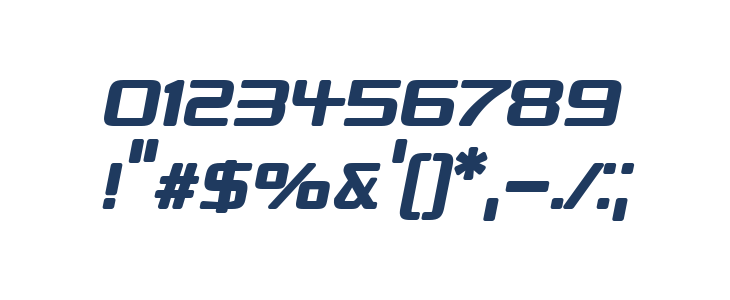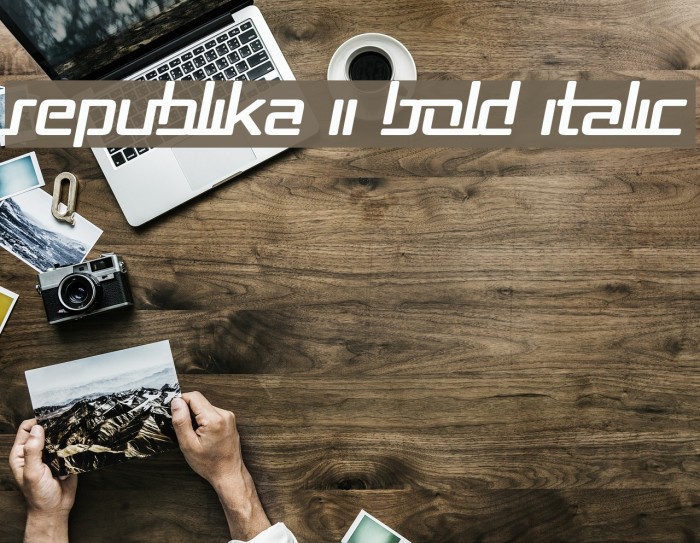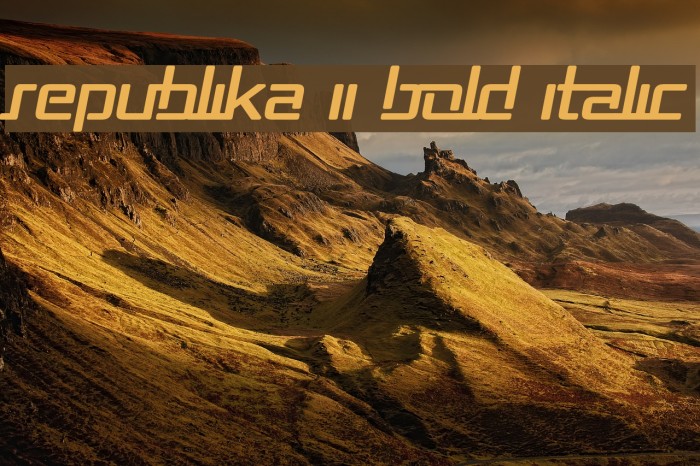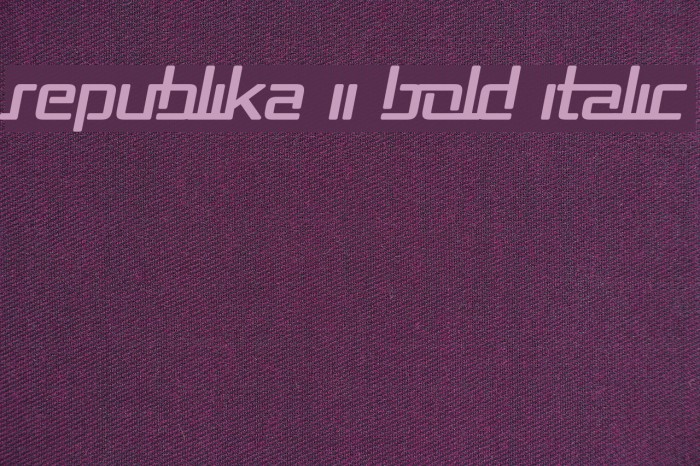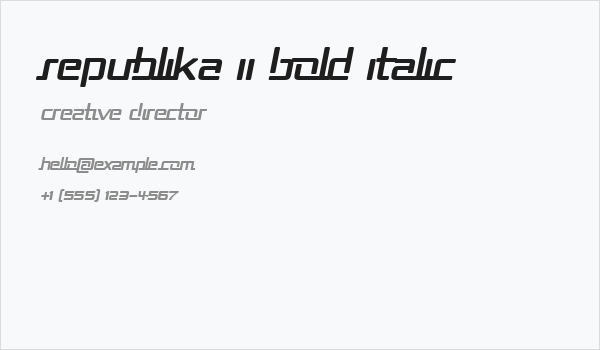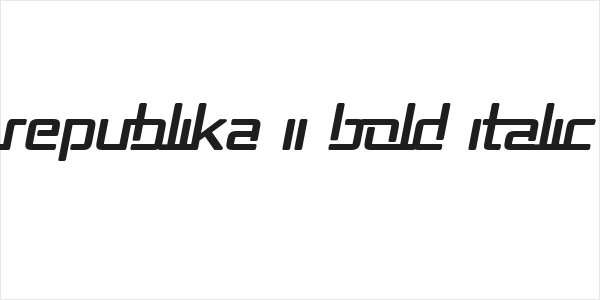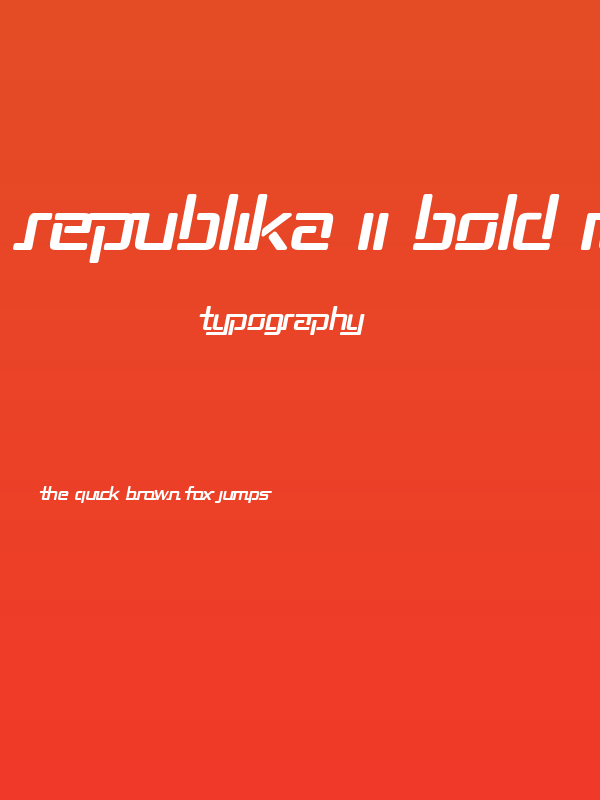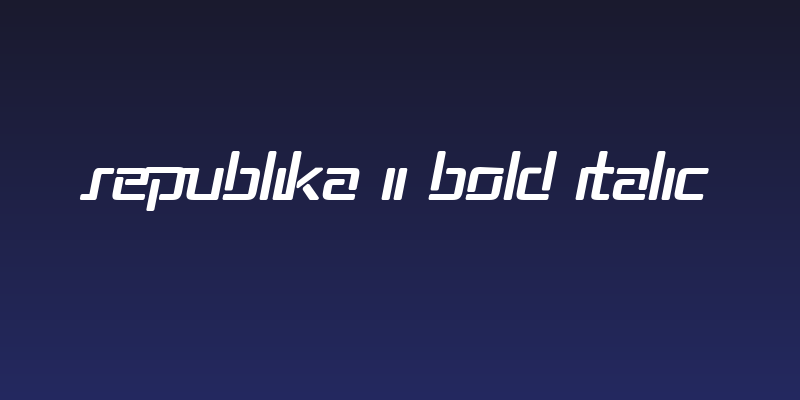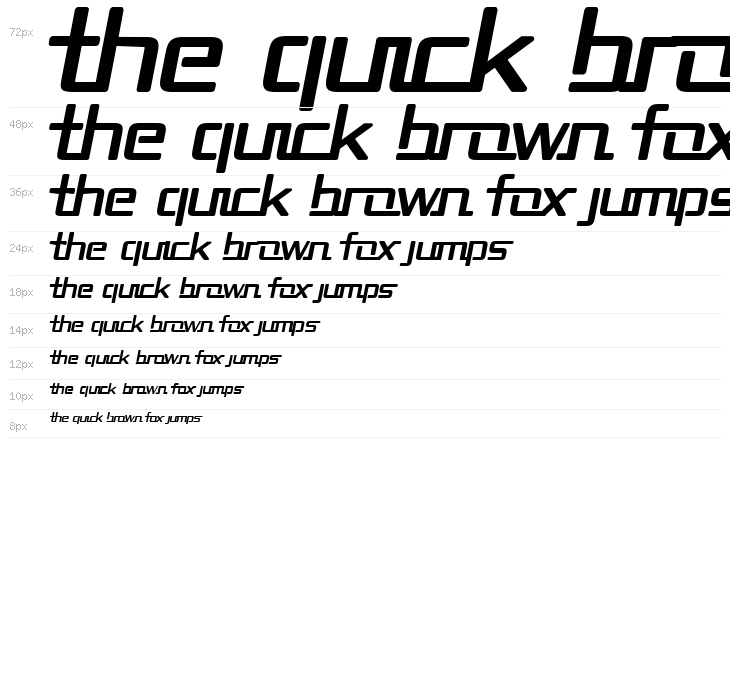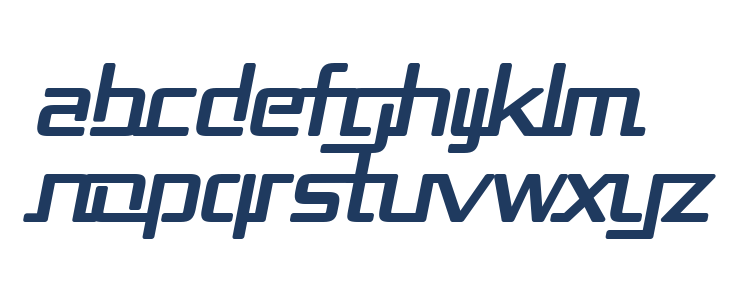
Republika II Bold Italic Font
Republika II Bold Italic Description
This font exhibits a bold and italicized style with a modern and futuristic aesthetic. The characters are slightly condensed, featuring sharp angles and clean lines that convey a sense of speed and efficiency. The uppercase and lowercase letters maintain a consistent geometric structure, while the numerals are distinct and easily readable. Special characters are designed to complement the overall sleek appearance, making this font suitable for dynamic and contemporary design projects.